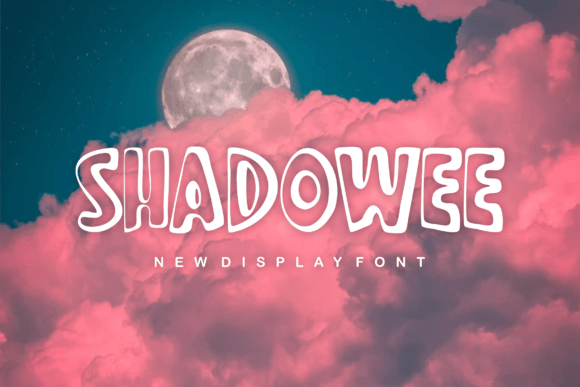
Are you ready to make a bold statement with your next design project? Look no further than Shadowee Font, the captivating display font that will elevate your creations to new heights.
Immerse yourself in a world of edgy elegance with Shadowee Font. Its meticulously crafted outlines dance across the page, exuding an air of sophistication and charm. Each character whispers tales of creativity and invites you to push the boundaries of your imagination.
Whether you're crafting eye-catching logos that demand attention or designing captivating invitations that leave a lasting impression, Shadowee Font is your perfect partner. Its versatility knows no bounds, adapting seamlessly to a myriad of projects, including:
- Signature designs that radiate personality and flair
- Stationery that exudes professionalism and style
- Logos that command respect and leave an unforgettable mark
- Wedding invitations that evoke timeless romance and elegance
- Typography quotes that inspire and captivate
- Magazine and book covers that ignite curiosity and intrigue
- Website headers that welcome visitors with a touch of sophistication
- Clothing designs that make a statement and turn heads
- Branding that establishes a strong and recognizable identity
- Packaging designs that entice customers and drive sales
But Shadowee Font is more than just a font; it's an invitation to unleash your creativity and make a lasting impact. With its friendly characters and effortless charm, Shadowee Font empowers you to express yourself with confidence and style.